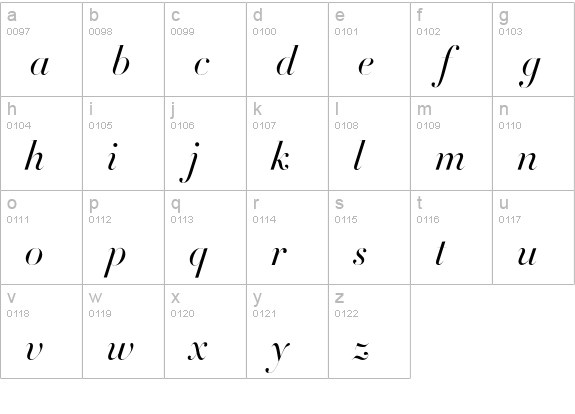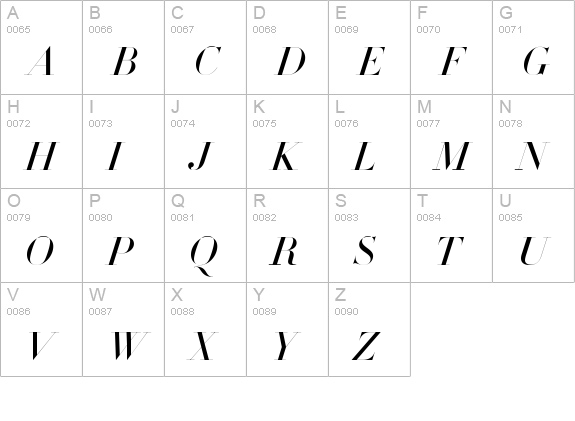
Didot-HTF-L96-Light-Ital Font Details
Didot-HTF-L96-Light-Ital is a refined, elegant variant in the Didot typeface family \xE2\x80\x94 well suited to elegant body text, refined sub-headings, and luxury branding.
Didot-HTF-L96-Light-Ital is a sleek and elegant typeface that exudes sophistication and modernity. With its delicate serifs and graceful curves, this font is perfect for adding a touch of refinement to any design project. The light italic weight adds a sense of subtlety and elegance, making it ideal for use in editorial layouts, branding materials, and more. And the best part? Didot-HTF-L96-Light-Ital is available for free download at FontsMarket.com. So, whether you're a designer looking to elevate your projects or a typography enthusiast seeking a new favorite font, be sure to check out this beautiful typeface and add it to your collection today.